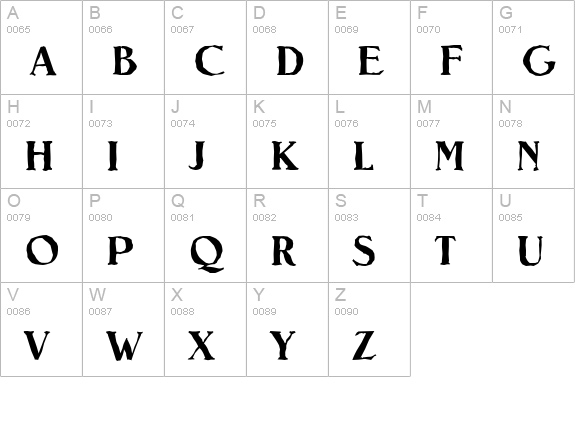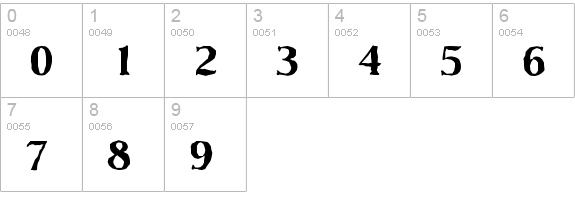
NevadaAntique-Bold Font Details
NevadaAntique-Bold is a strong, high-contrast variant in the NevadaAntique typeface family \xE2\x80\x94 well suited to headlines, attention-grabbing titles, and strong calls-to-action.
NevadaAntique-Bold font is a timeless and elegant typeface that exudes a sense of vintage charm and sophistication. With its bold and distinctive letterforms, this font is perfect for adding a touch of old-world flair to your designs. Whether you're working on a classic poster, a retro-inspired logo, or a vintage-themed website, NevadaAntique-Bold font will bring a sense of nostalgia and character to your projects. What's even better is that NevadaAntique-Bold font is available for free download at FontsMarket.com. You can easily access this stylish font and incorporate it into your creative endeavors without any cost. Don't miss out on the opportunity to enhance your designs with the classic beauty of NevadaAntique-Bold font – download it for free today at FontsMarket.com!